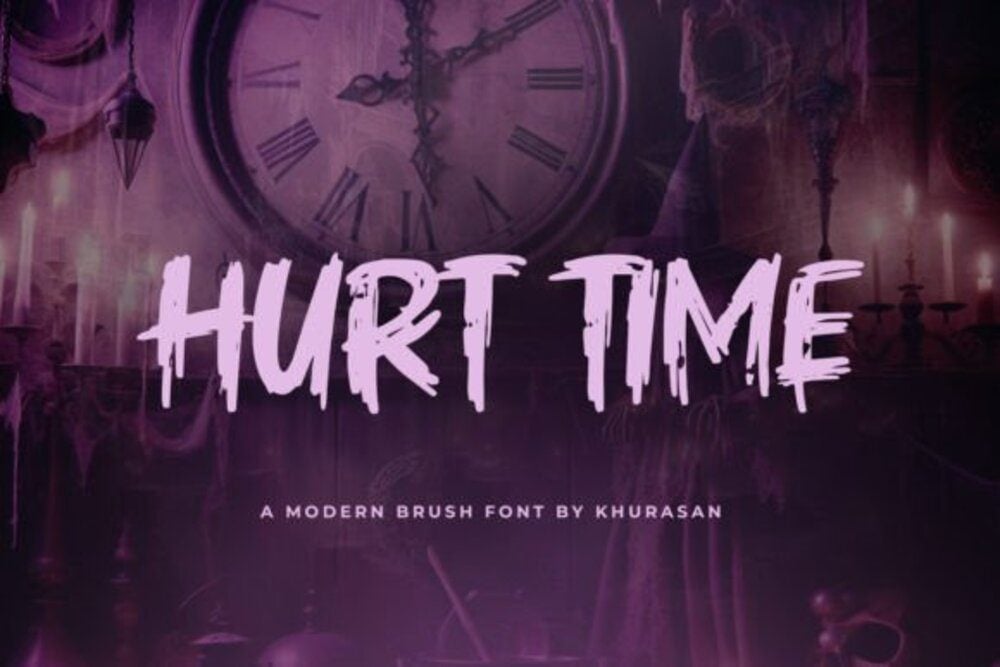
Hurt Time Font
Hurt Time Font is a bold and dramatic typeface that conveys intensity and raw emotion. With its sharp edges, distressed details, and powerful design, it evokes a sense of urgency and passion. Perfect for album covers, thriller posters, or edgy branding, this font adds a striking and evocative touch, making it ideal for projects that demand attention and convey deep impact.